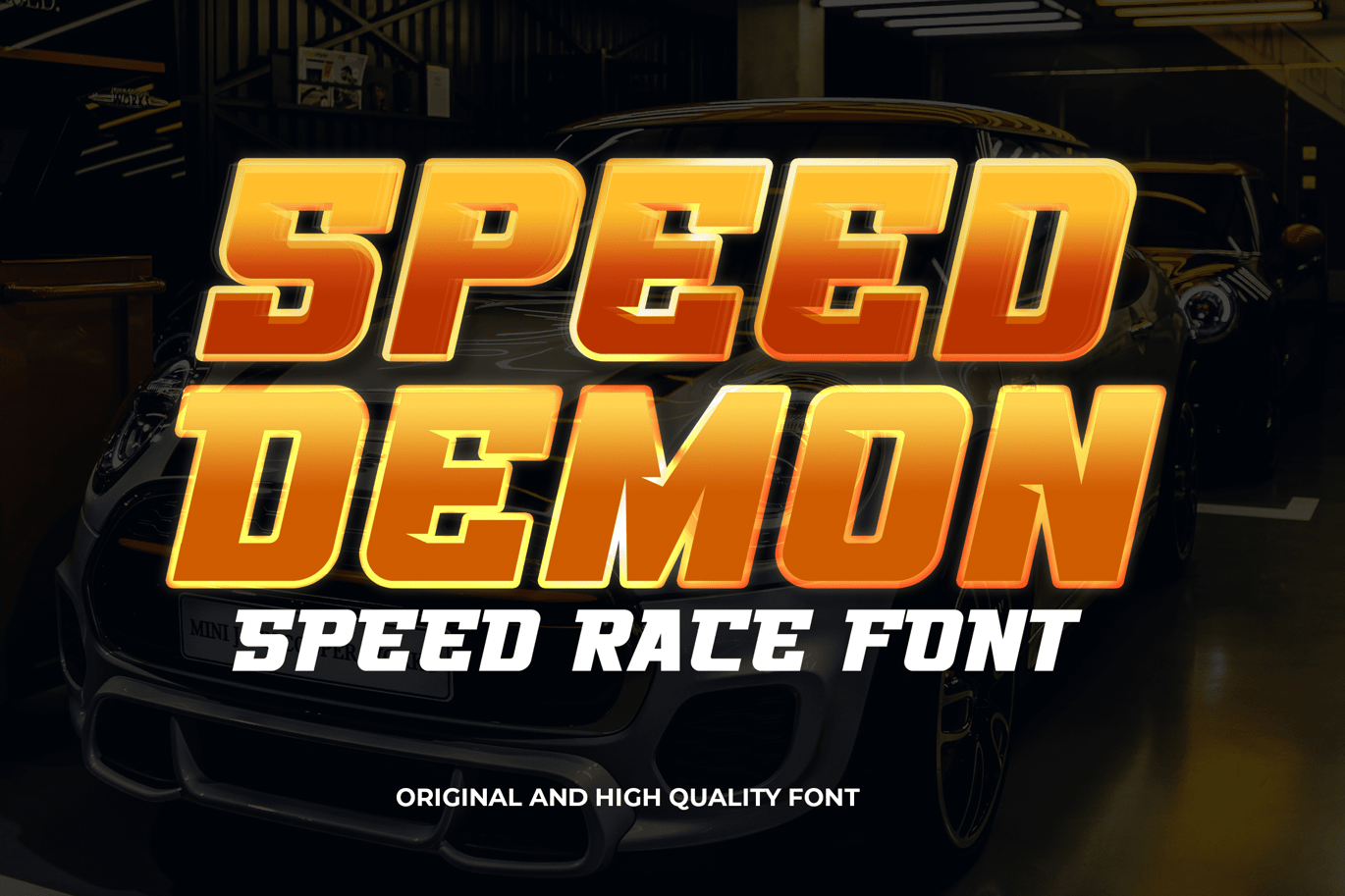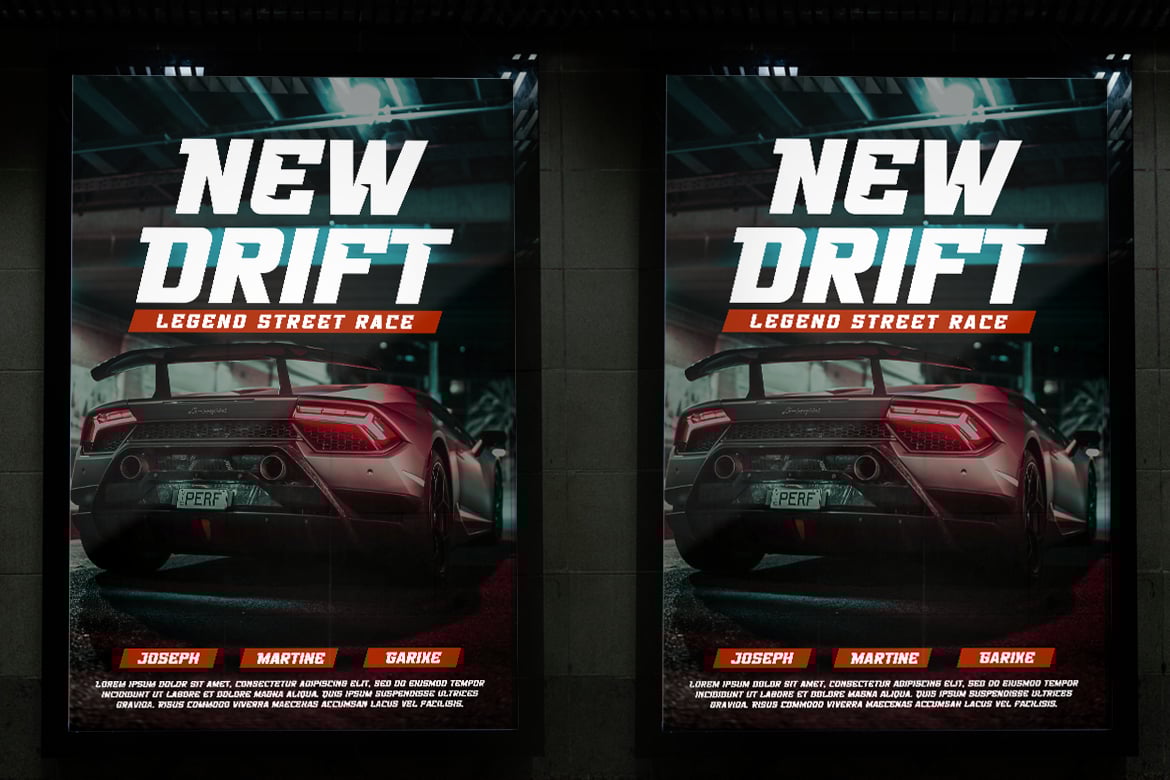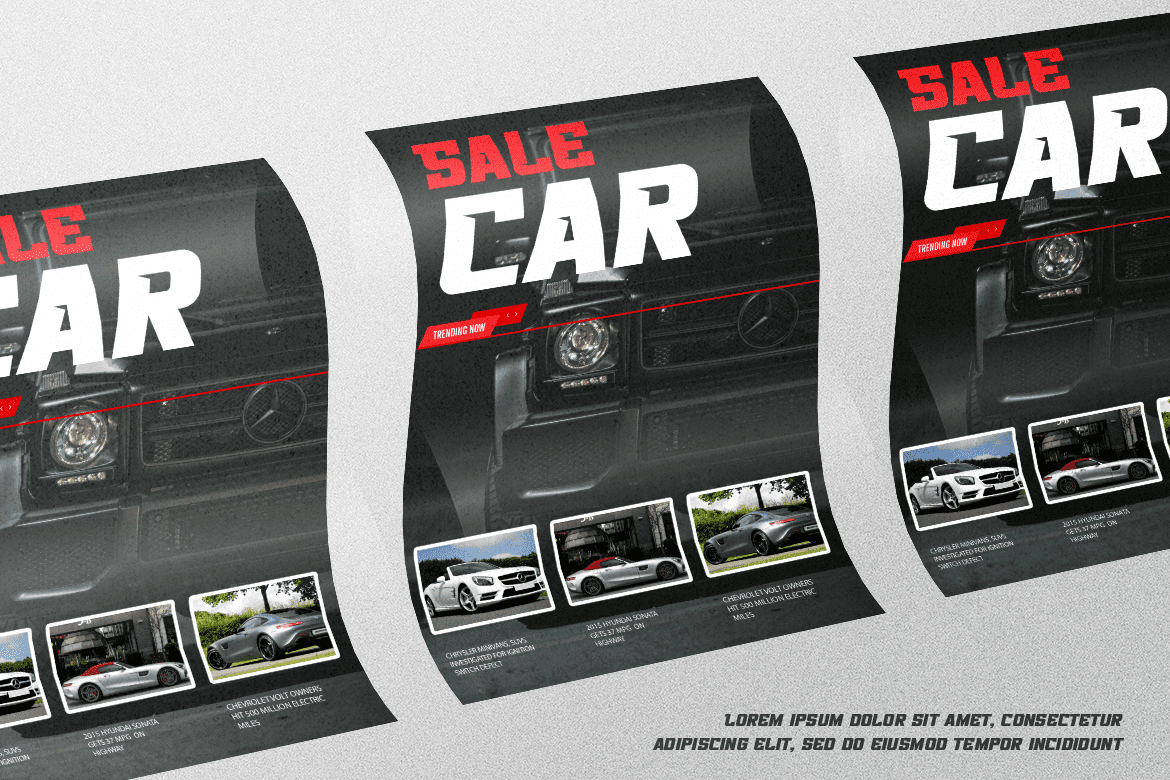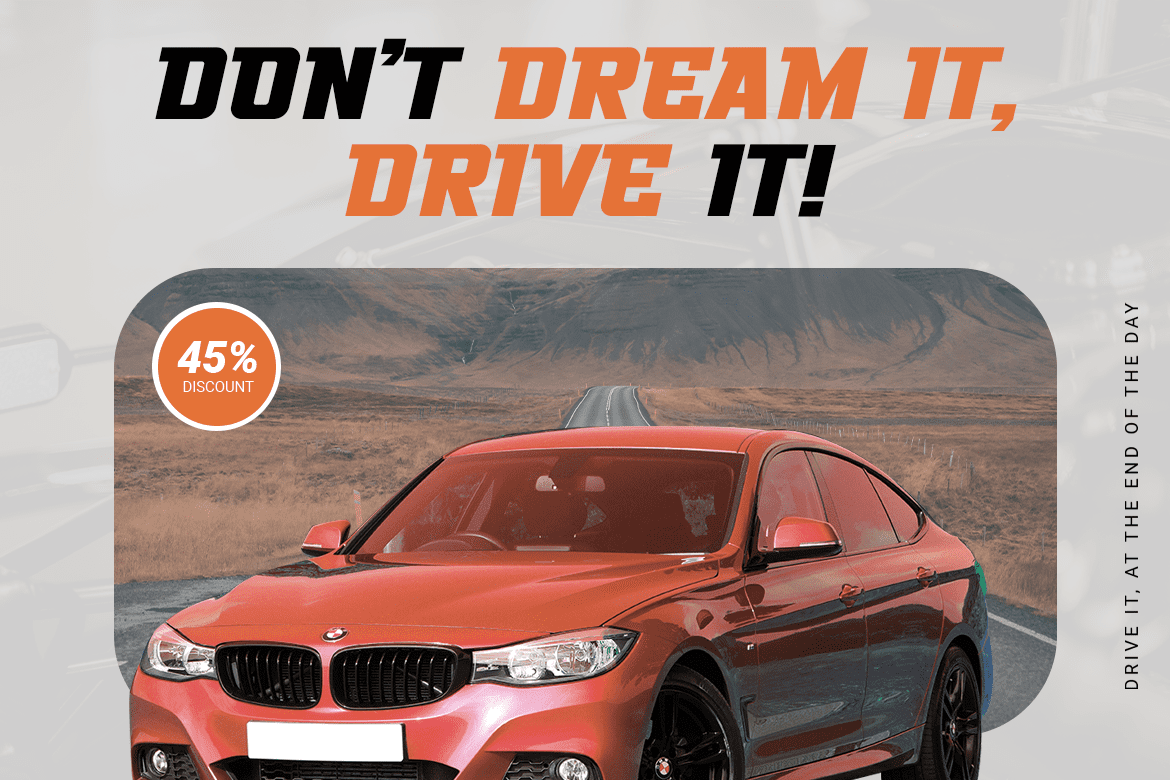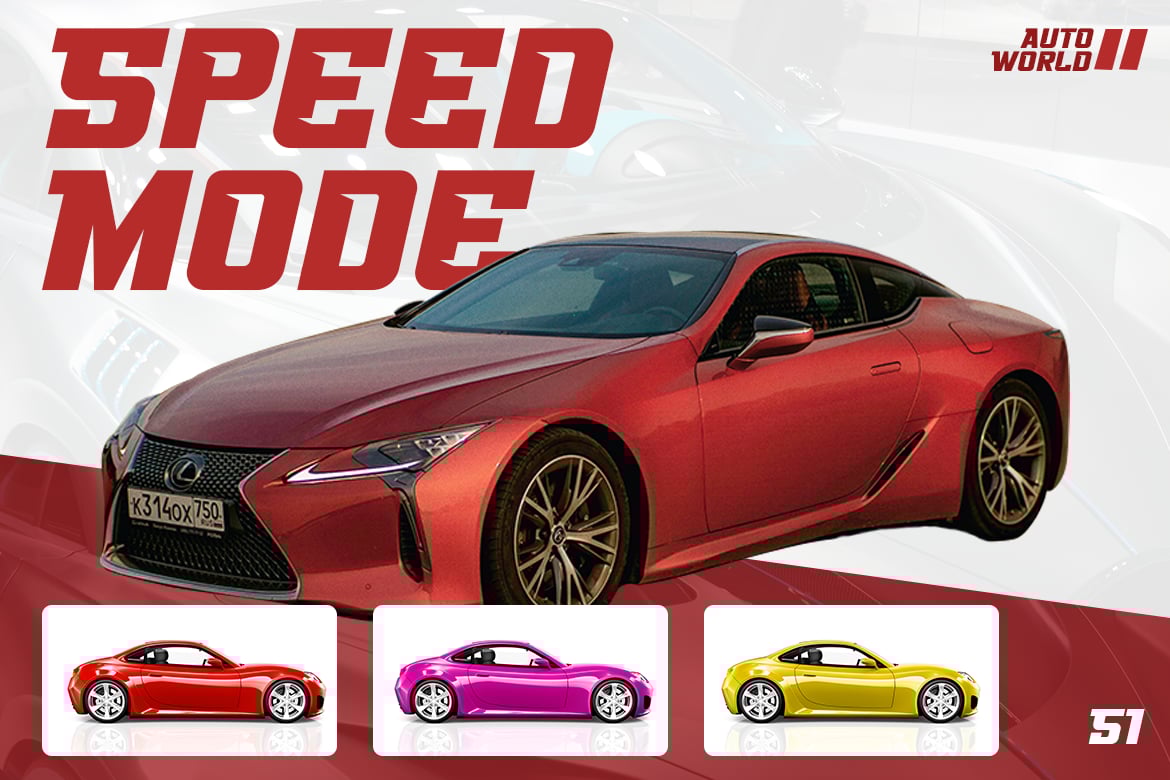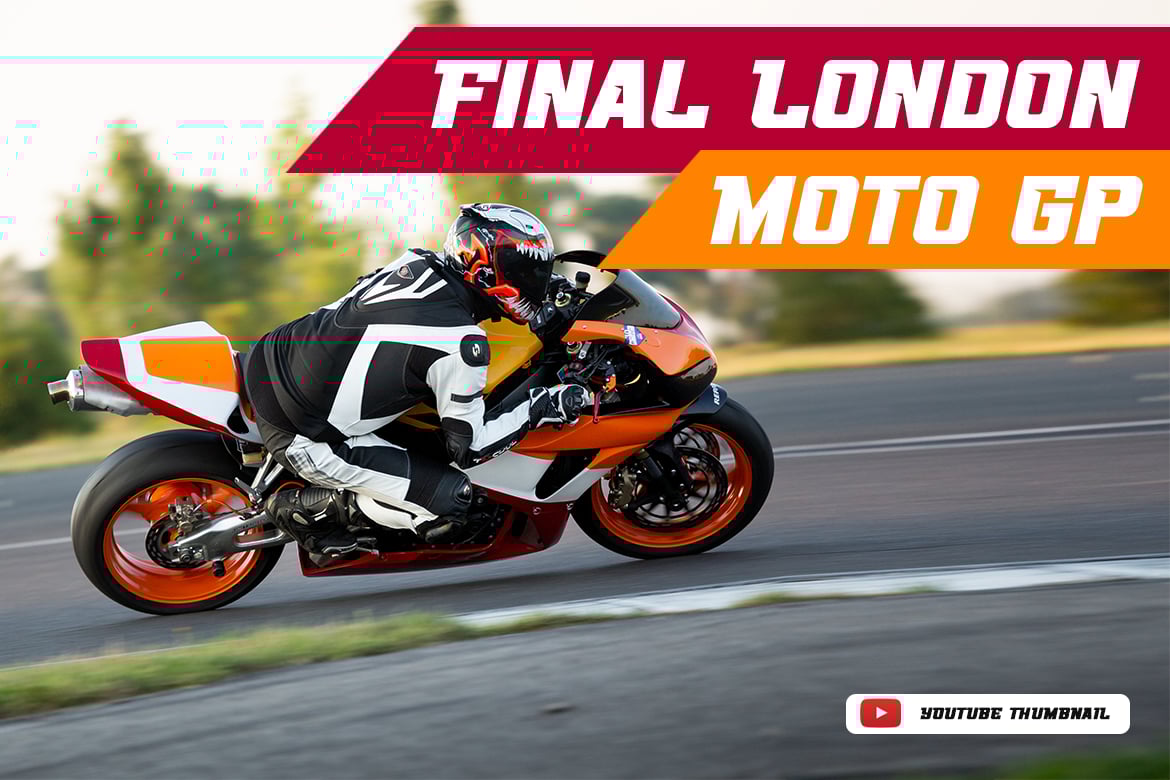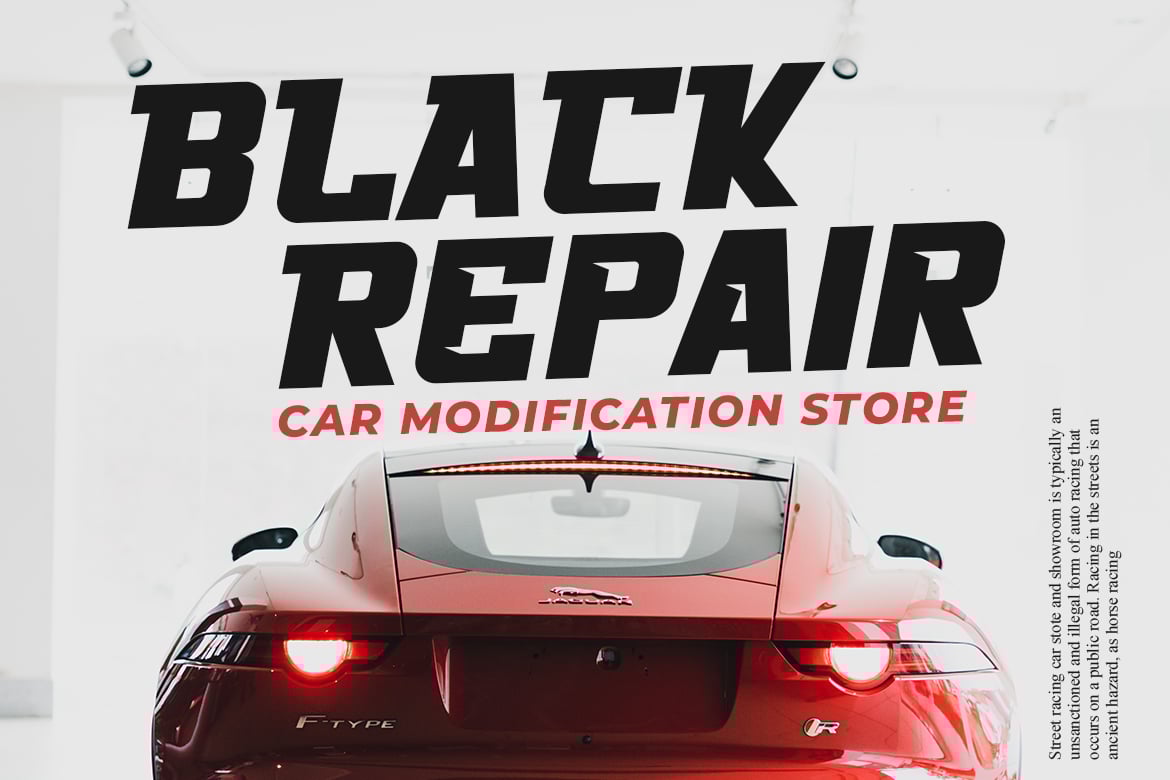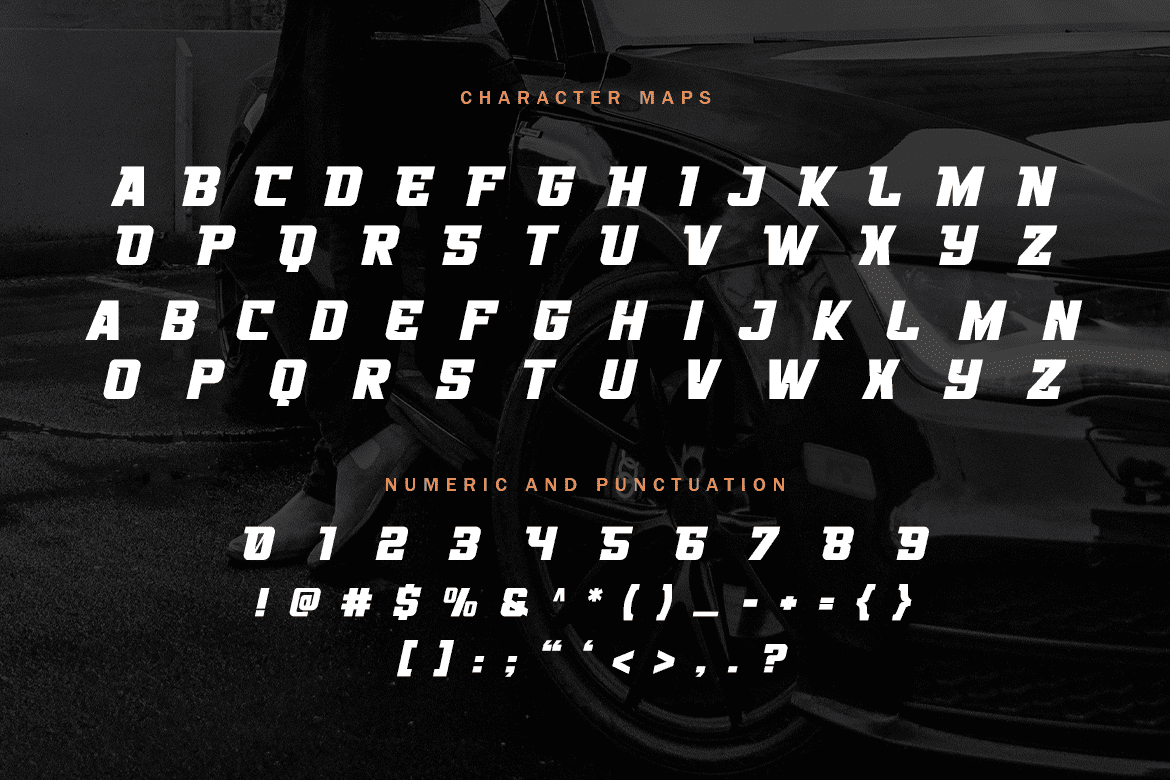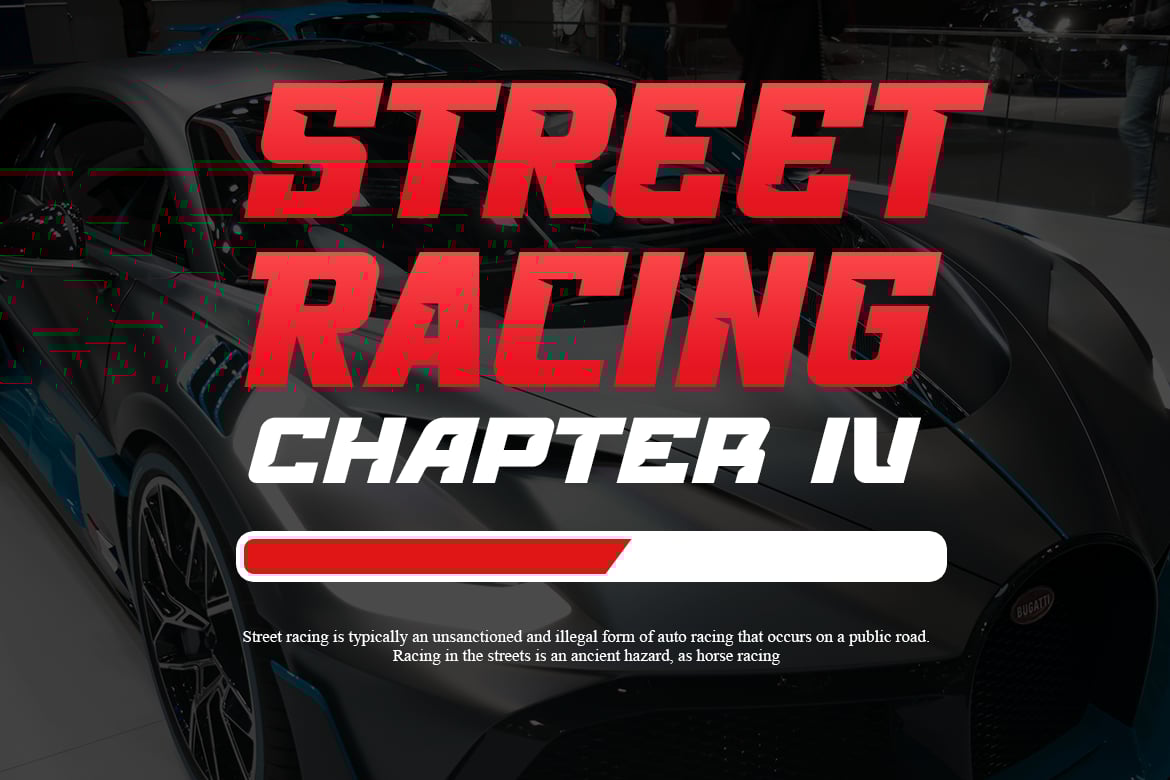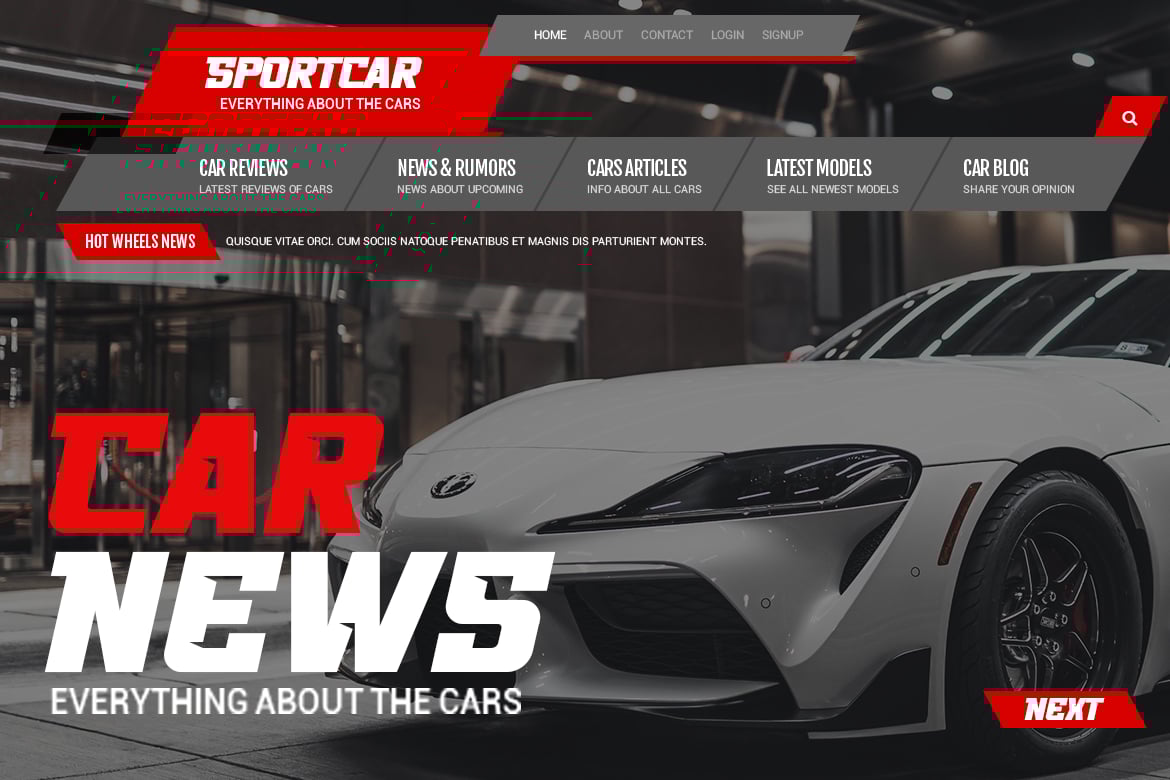
Speed Demon – The Car acing Font
Speed Demon is a font that captures the essence of the fast-paced world of car racing. Its sleek, modern design is perfect for creating high-impact designs that demand attention. With its sharp angles and dynamic lines, Speed Demon is the perfect choice for any project that requires a bold and powerful font.
Whether you’re designing posters for a racing event, creating movie titles for an action-packed film, or producing marketing materials for a sports brand, Speed Demon is the font that will help you stand out. Its racing-inspired style is perfect for capturing the thrill of the race and creating a sense of excitement and urgency.
Speed Demon is a font that is designed to be versatile and adaptable. Its clean lines and bold strokes make it easy to read even at small sizes, while its dynamic design always catches the eye. It is the perfect choice for anyone looking to add a touch of speed and excitement to their designs.